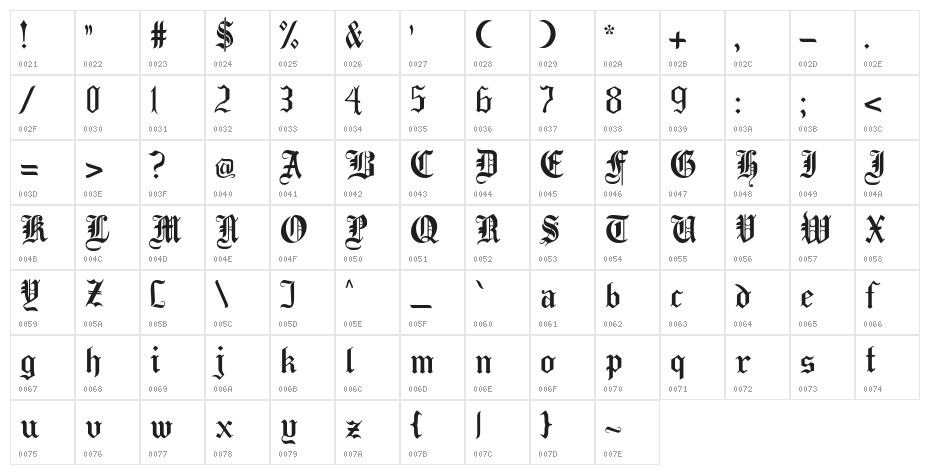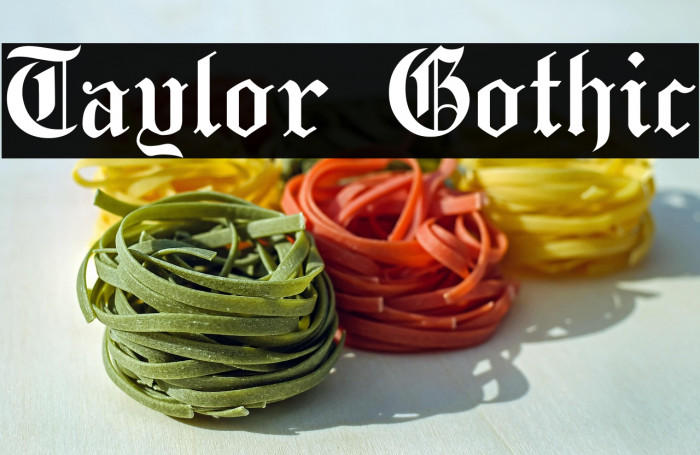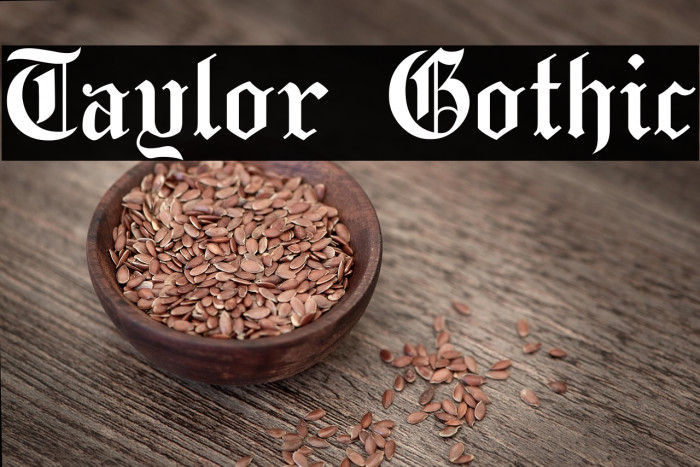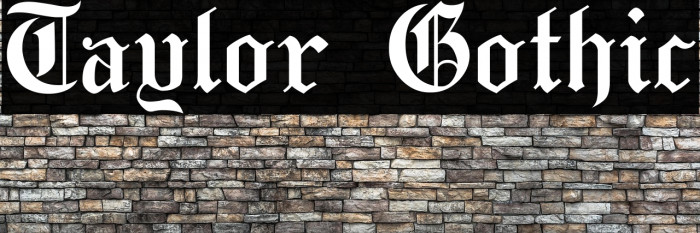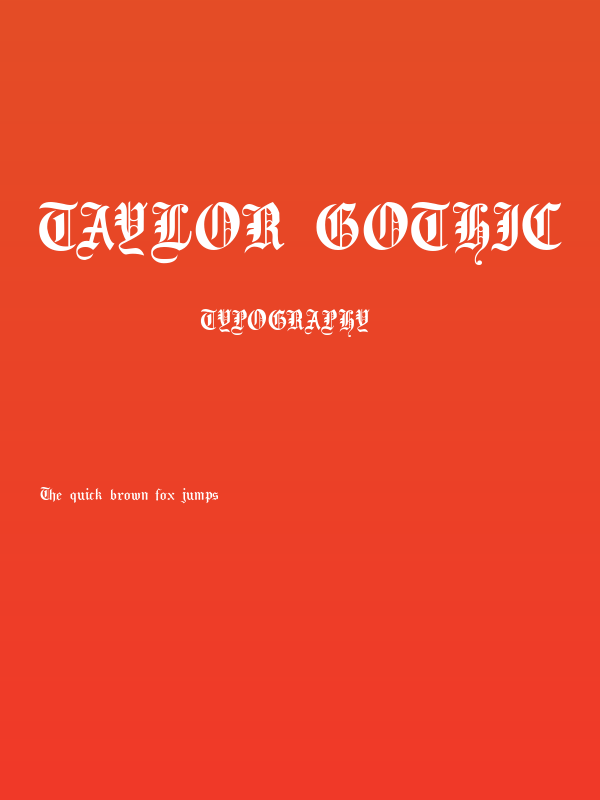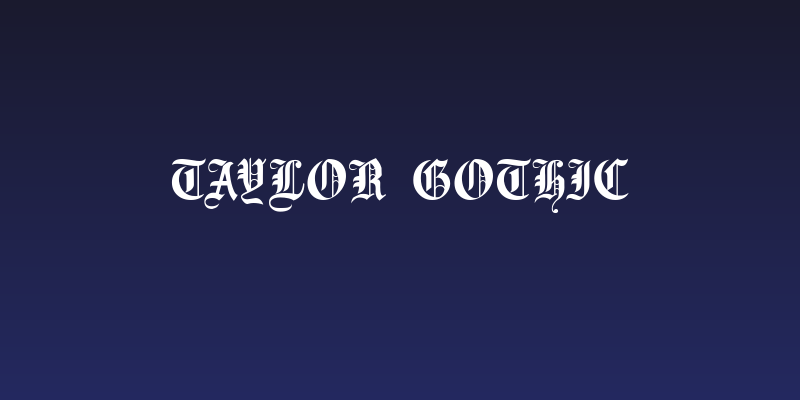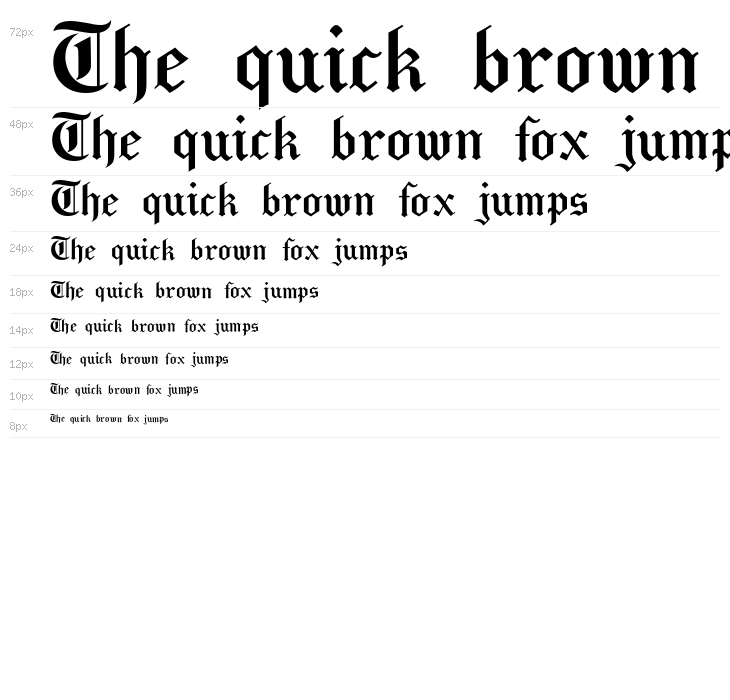
Taylor Gothic Font
Taylor Gothic Description
This font exhibits a classic blackletter style, characterized by its ornate and intricate letterforms. The uppercase letters feature sharp, angular lines with decorative flourishes, while the lowercase letters maintain a consistent style with slightly less ornamentation. The numbers and special characters are designed to complement the overall aesthetic, with bold strokes and a traditional gothic appearance. The font's strong presence and historical feel make it suitable for projects that require a touch of medieval or traditional elegance.